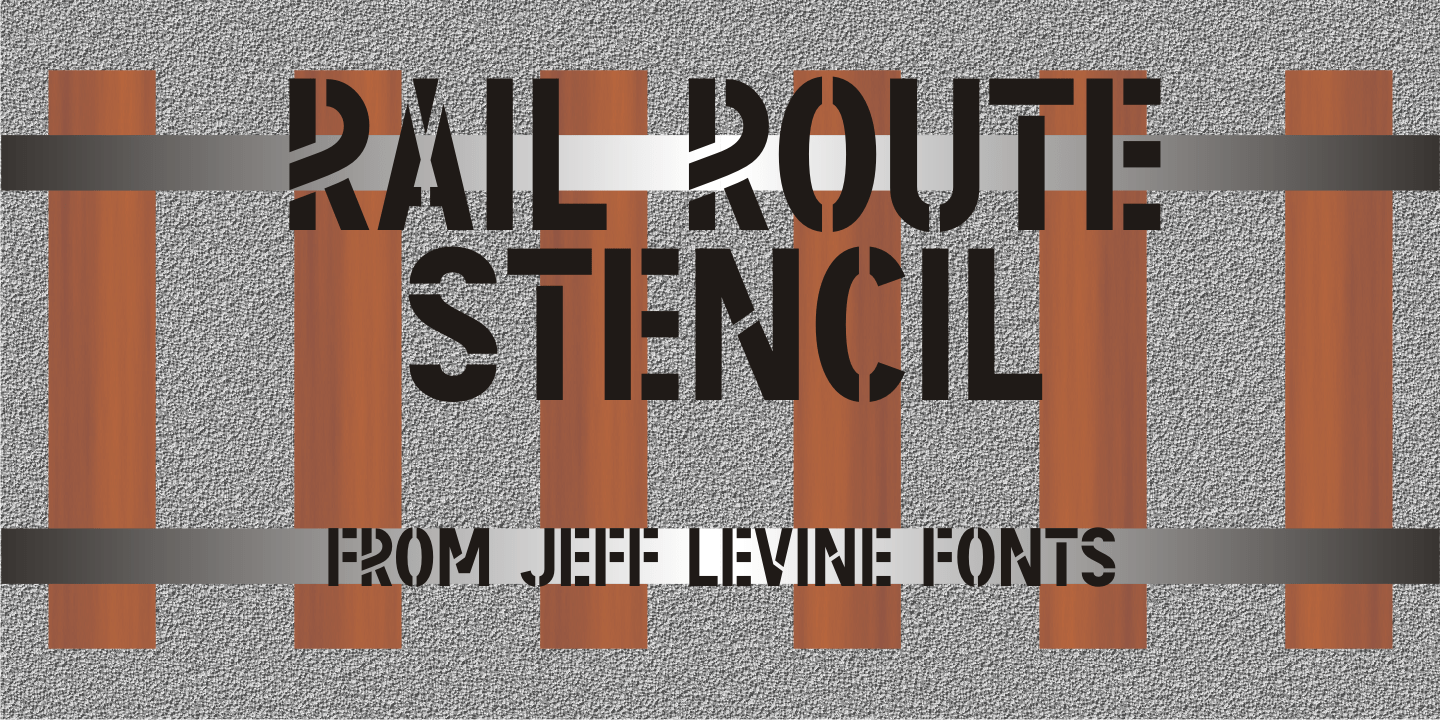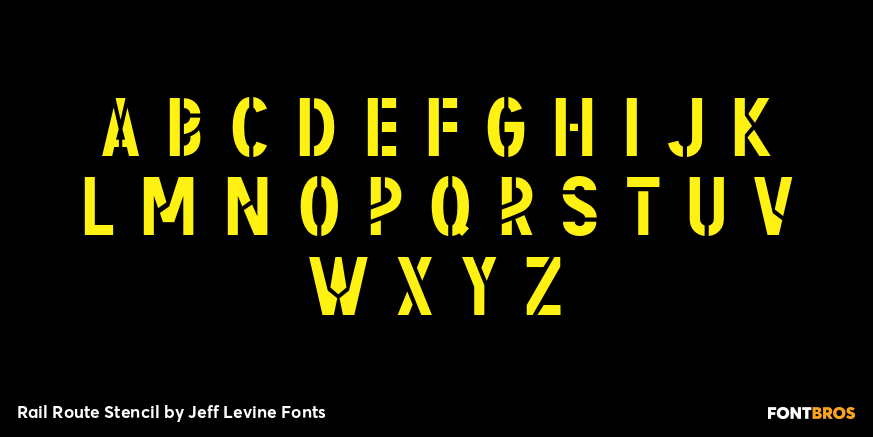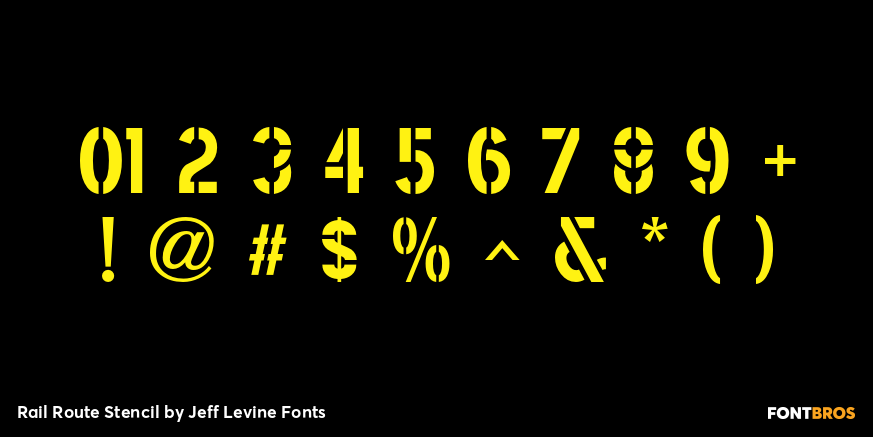
Rail Route Stencil
Rail Route Stencil JNL is based on a hand-cut paper stencil depicting a logo for the Baltimore and Ohio (B&O) Railroad. The lettering is from the motto encircling an image of the Capitol dome: "Linking 13 Great States with the Nation". This motto was not present on some other versions of the B&O logo.